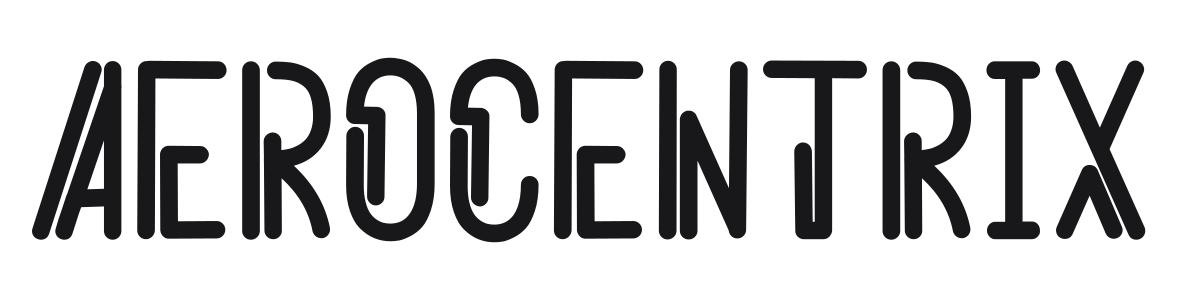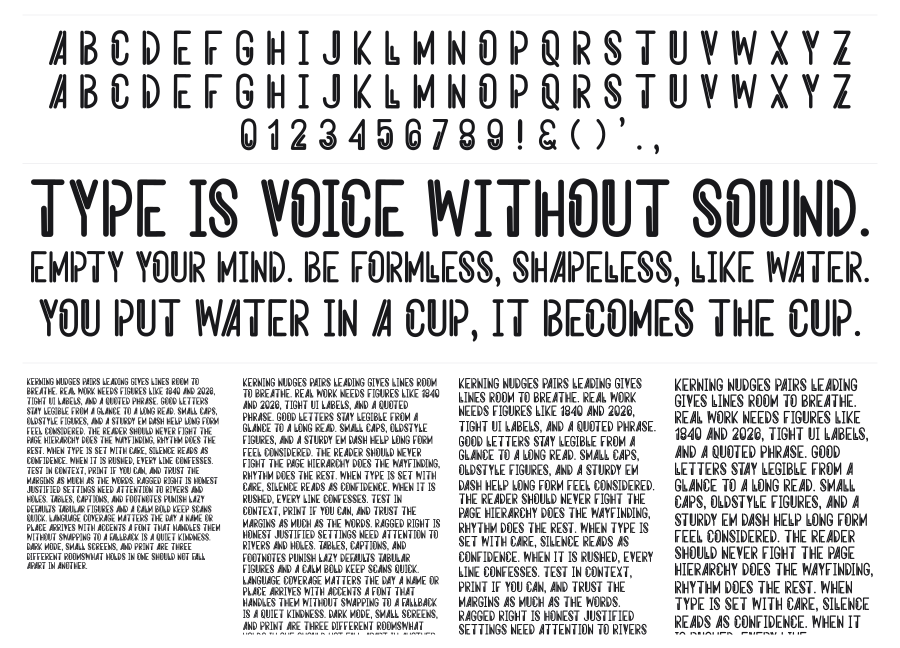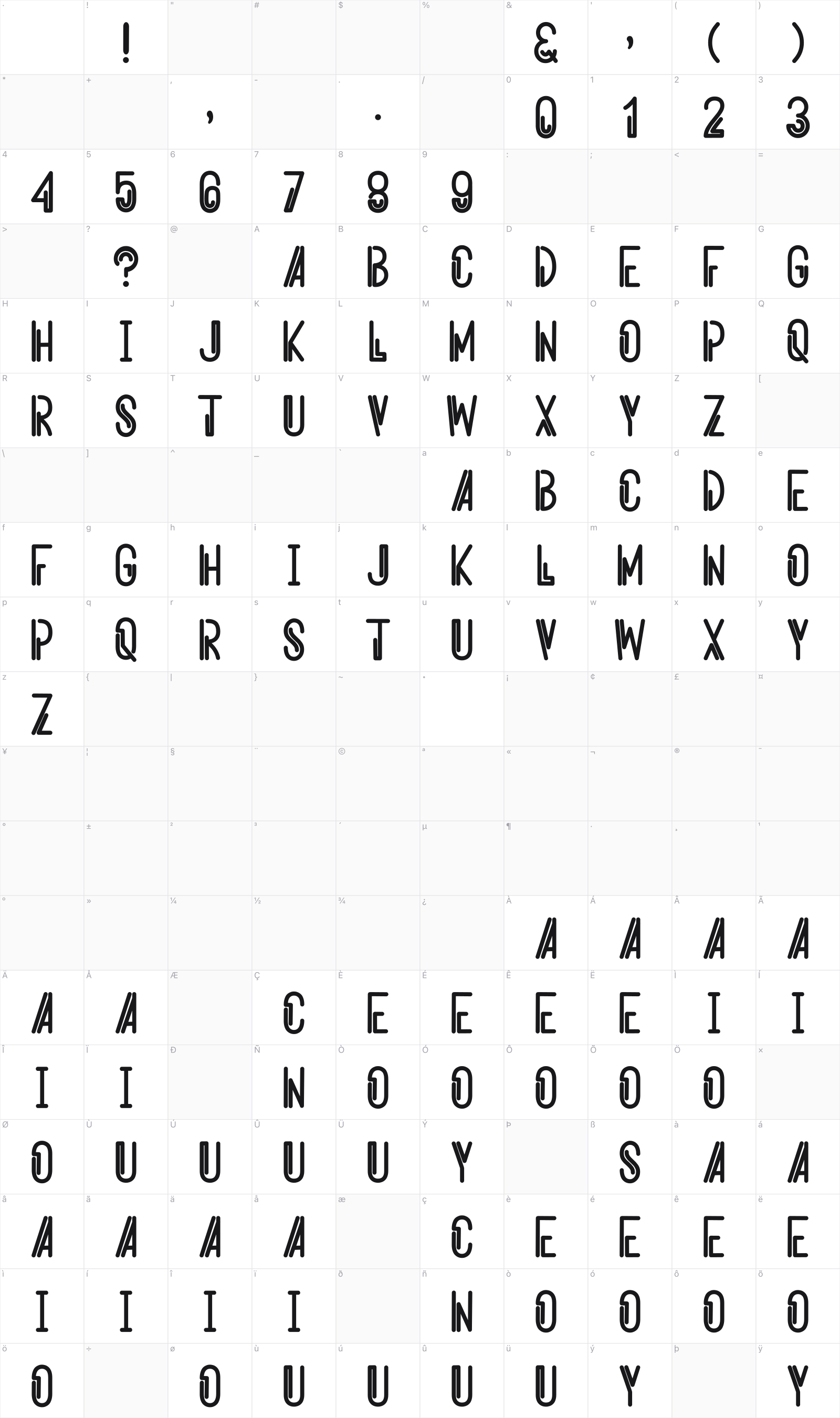
Aerocentrix
Aerocentrix is a condensed display sans with a striking inline slit running through each character's vertical strokes, evoking riveted panels or aeronautical engineering. The bold, narrow proportions and geometric construction give it a strong retro-futurist presence rooted in 1960s–70s display typography. It commands attention at large sizes and suits posters, album covers, and bold identity work.